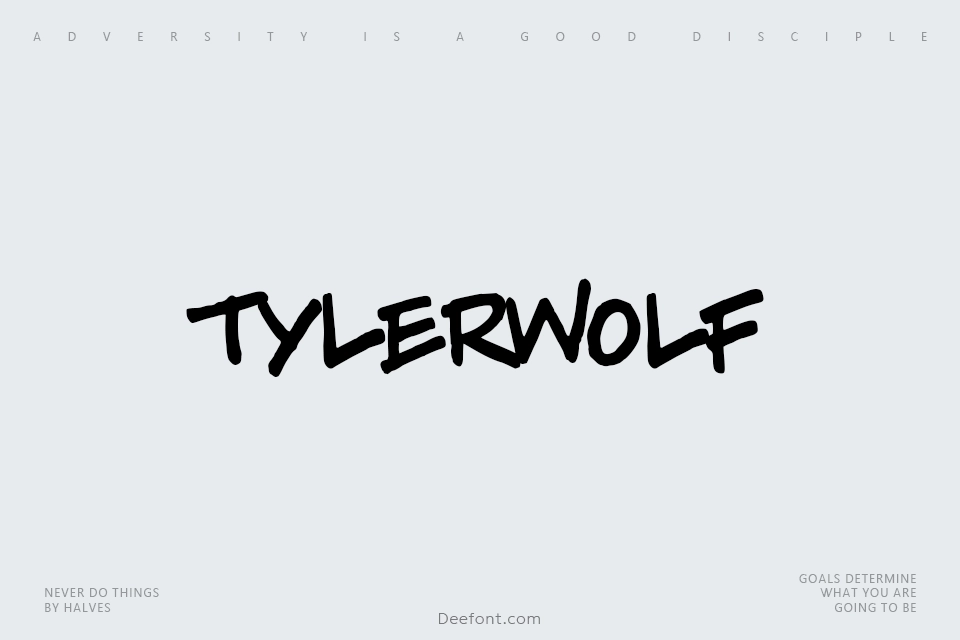
Tylerwolf Font
Tylerwolf is an architectural marker font designed by Philatype at Philatype. This distinctive handwritten typeface features confident, swift strokes with all capital letters, maintaining legibility while delivering an informal, structured aesthetic. Perfect for posters, apparel, and projects requiring rough typographic texture, Tylerwolf combines the charm of hand-drawn architecture with modern design sensibility, creating bold visual impact.